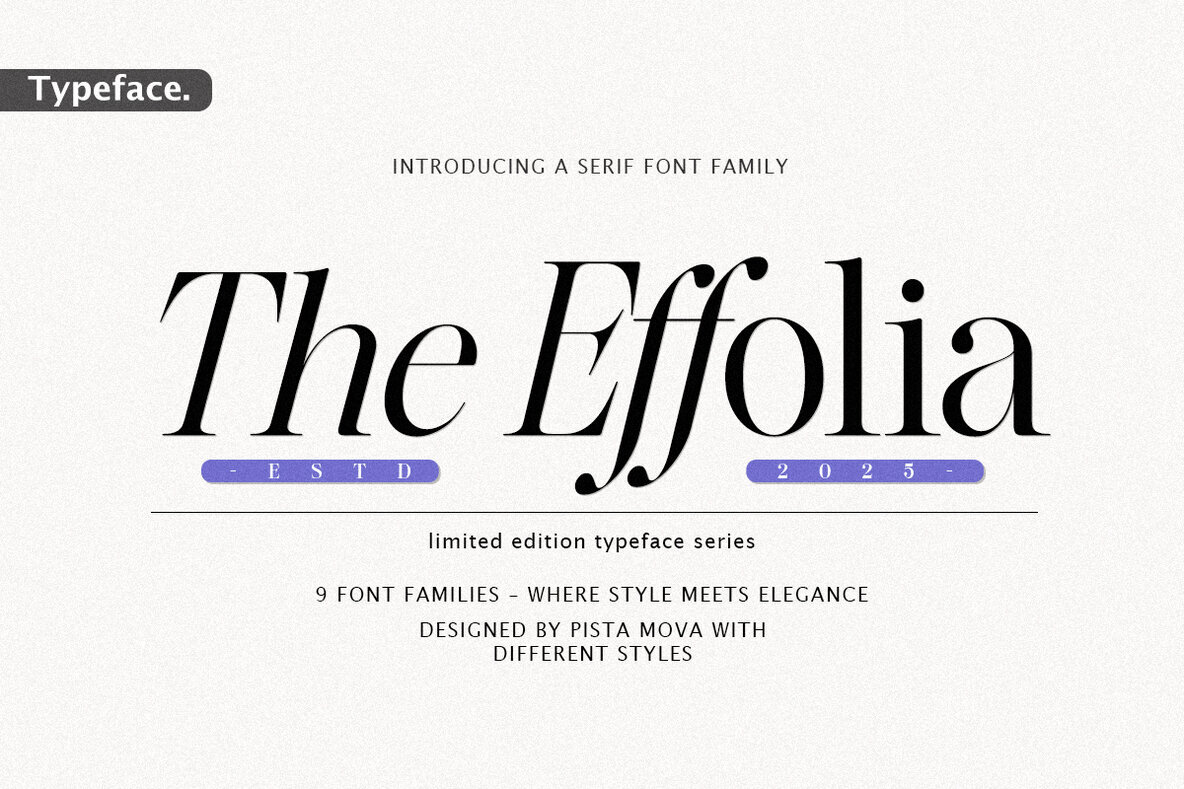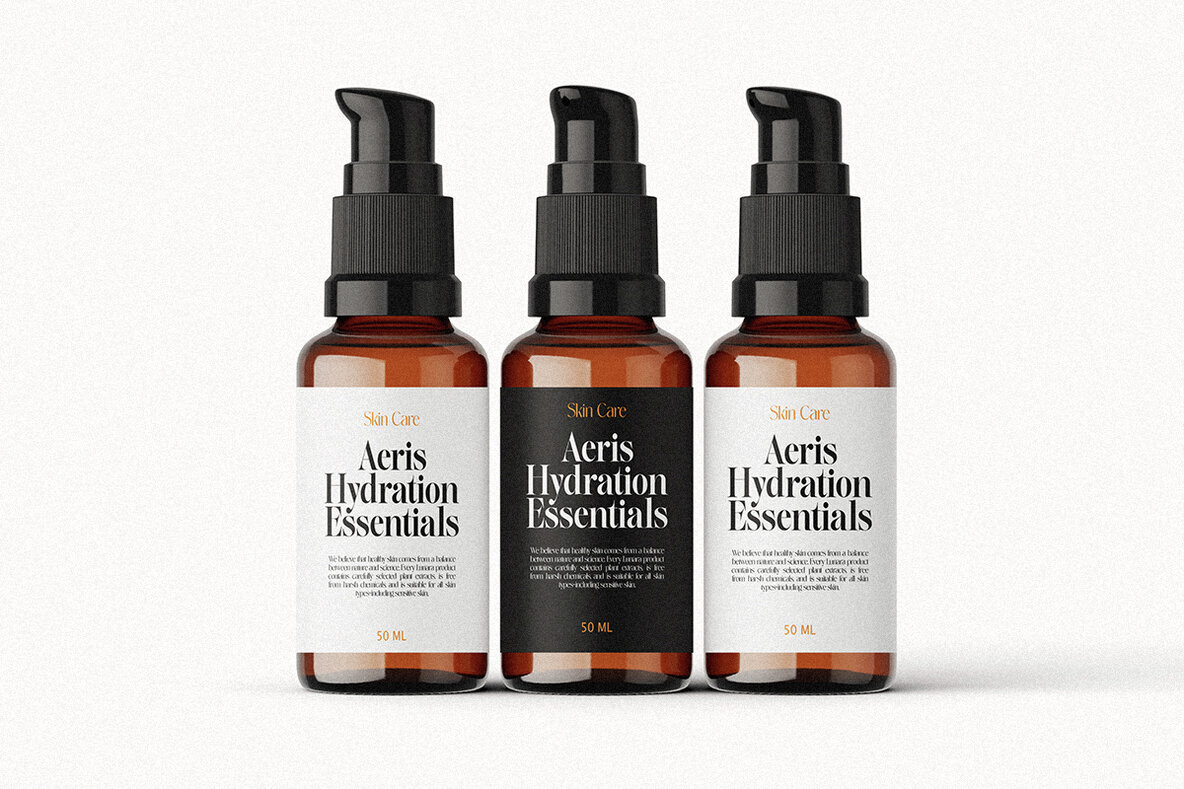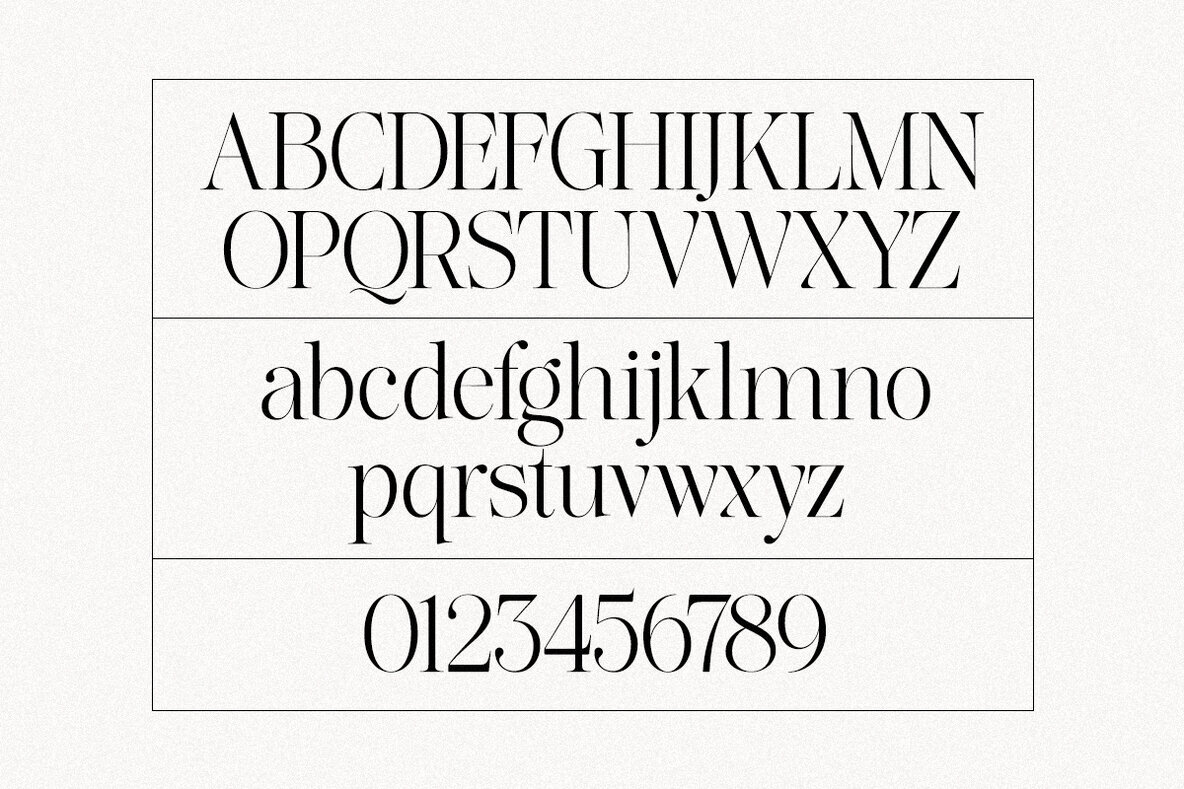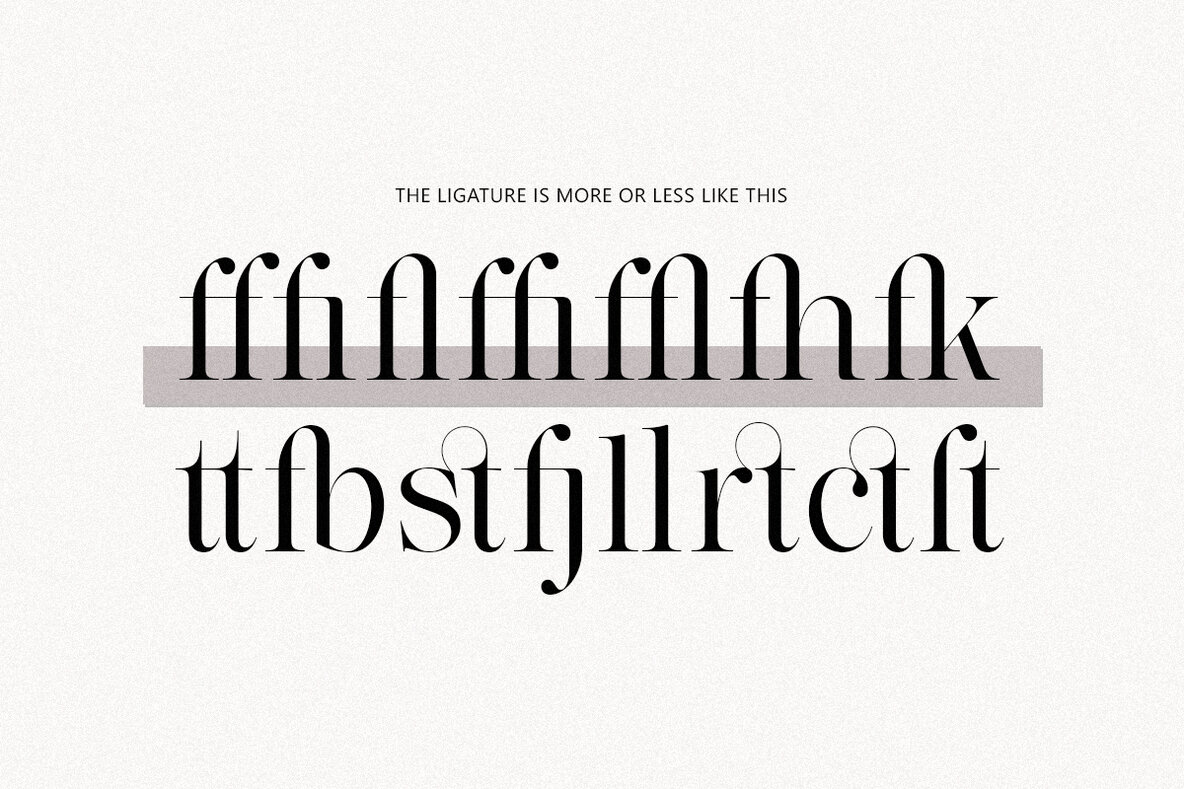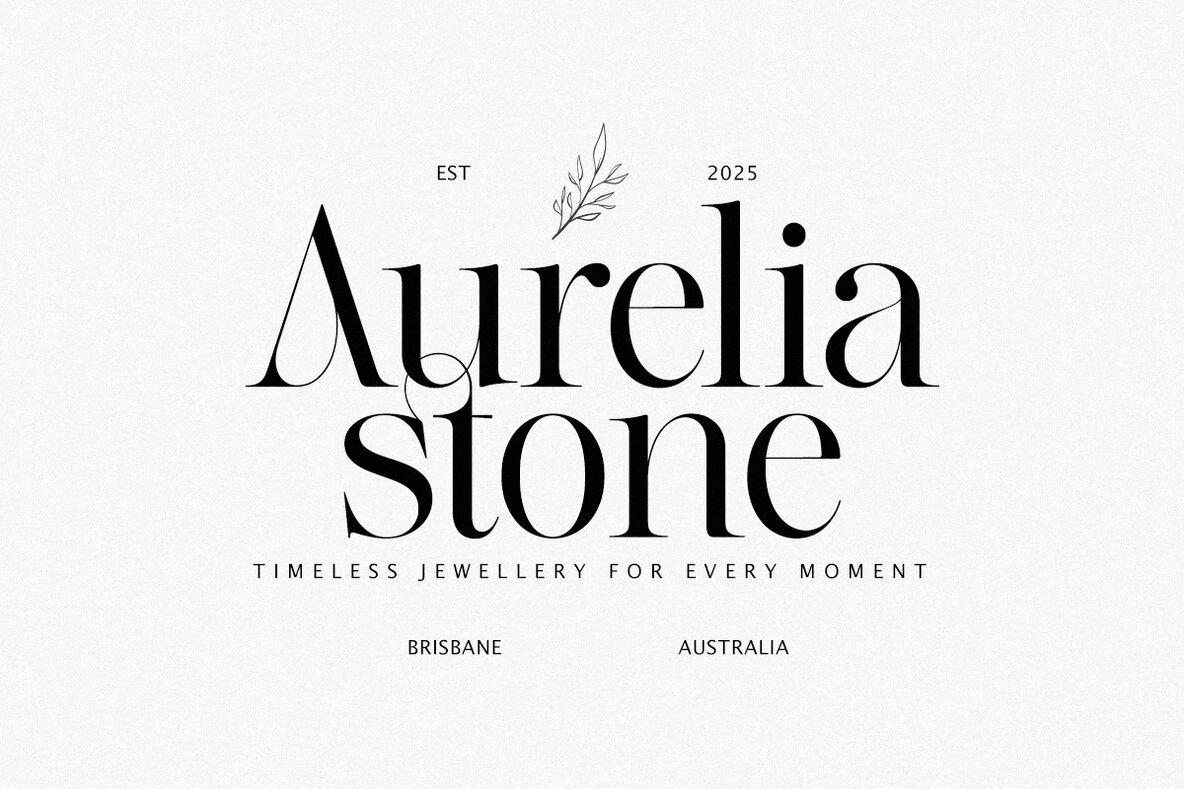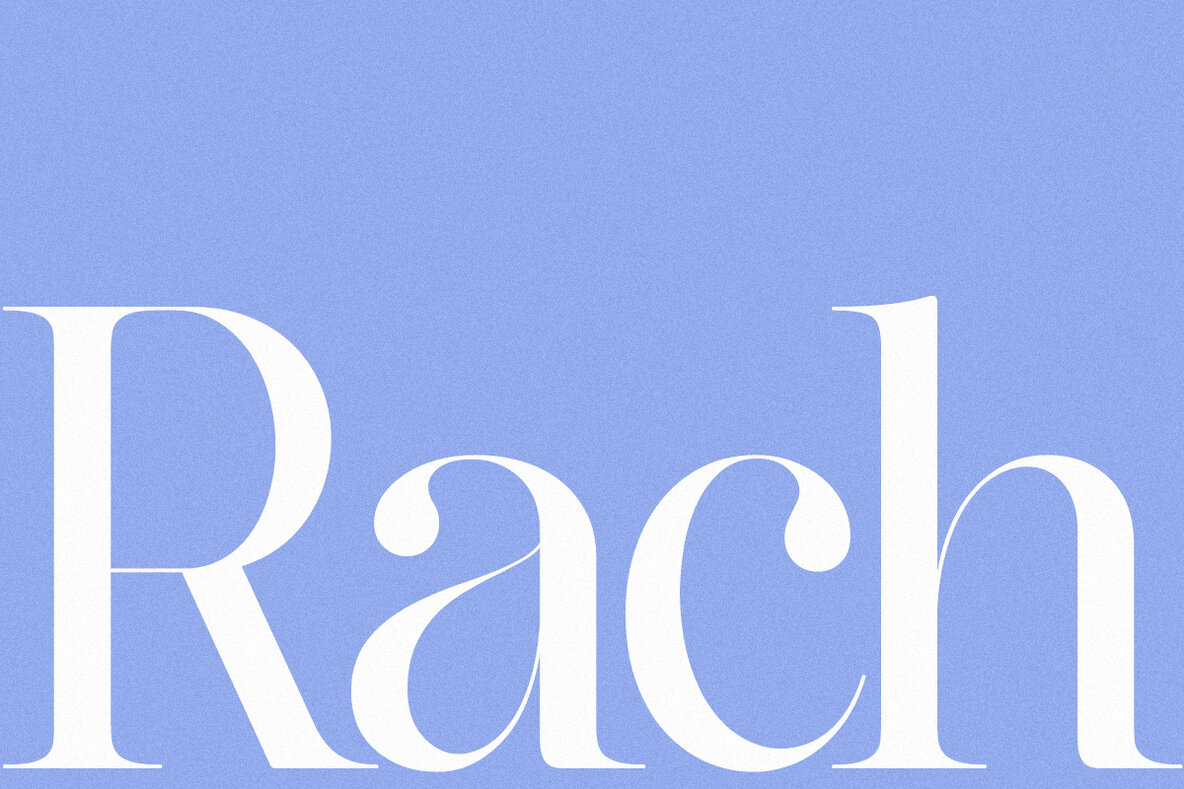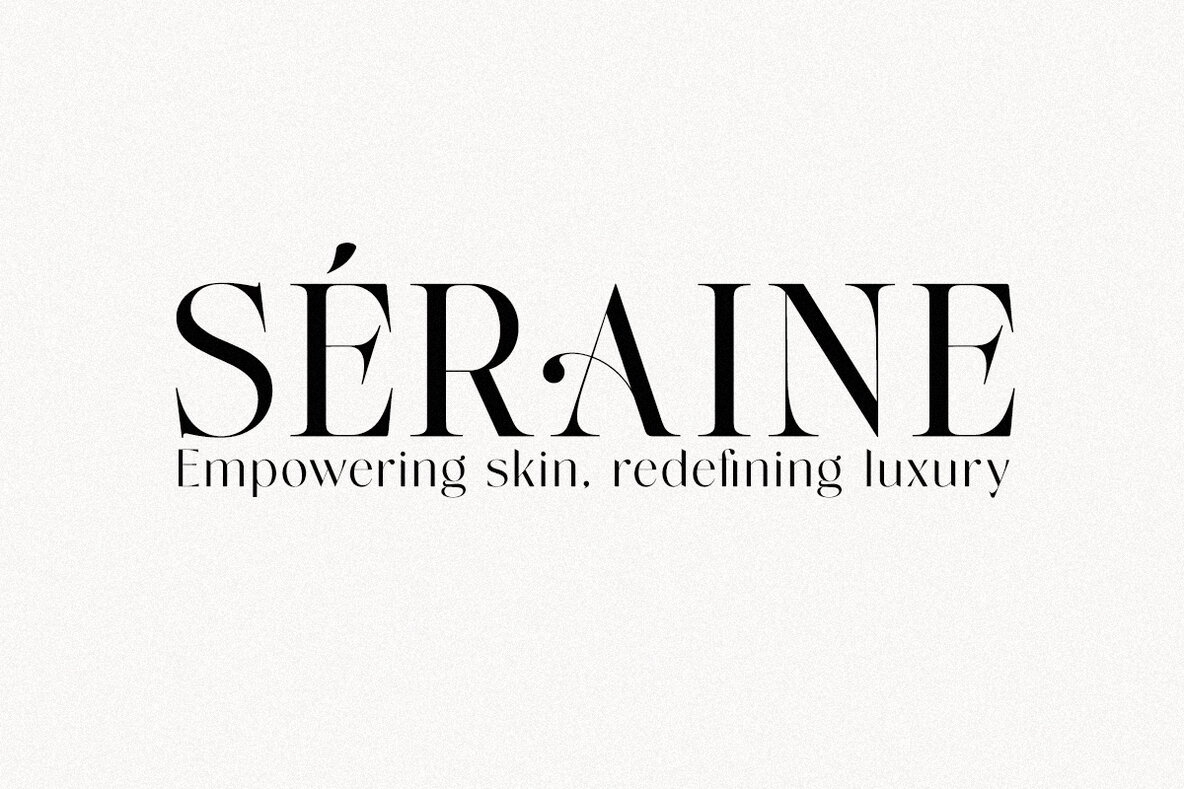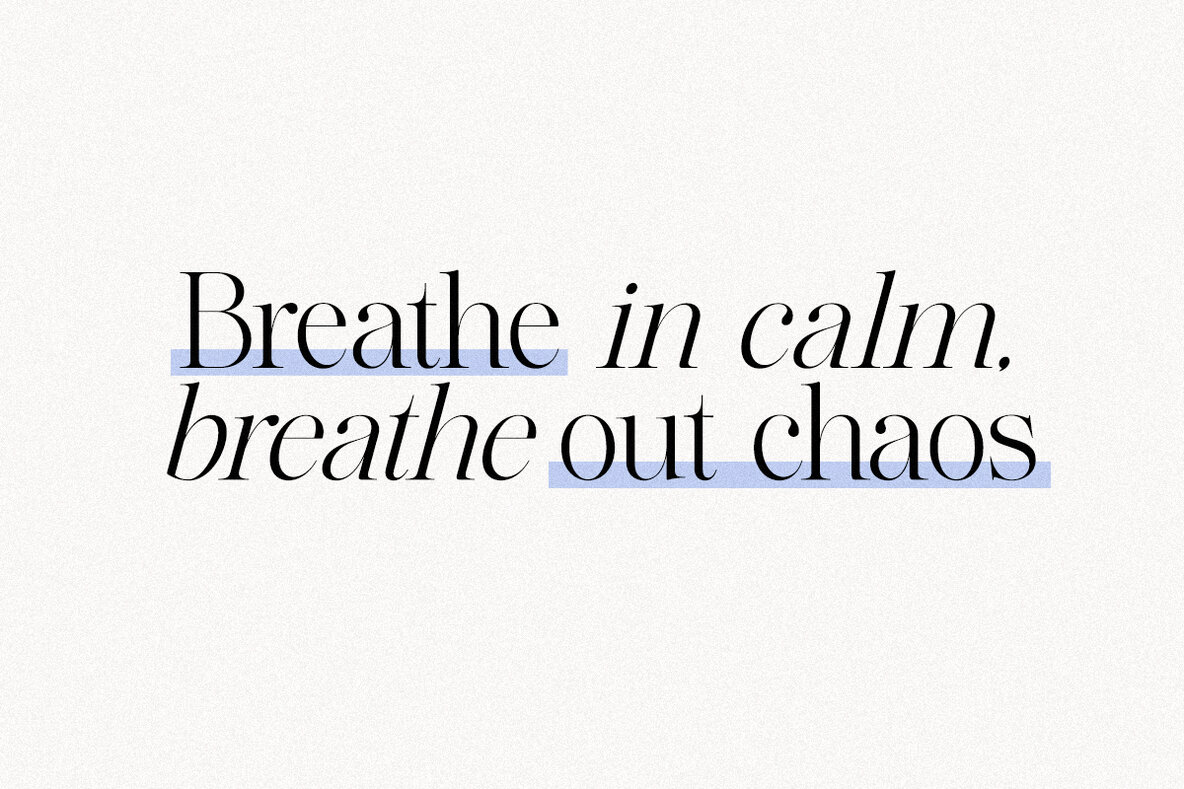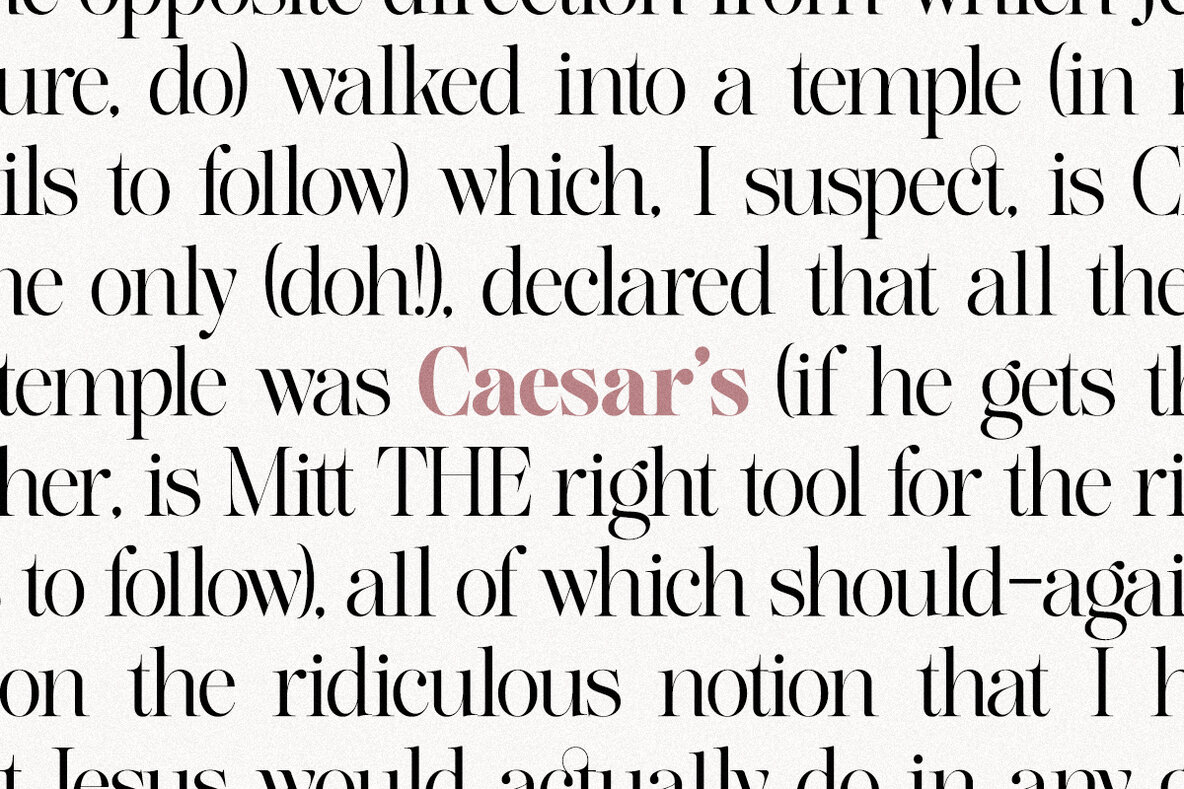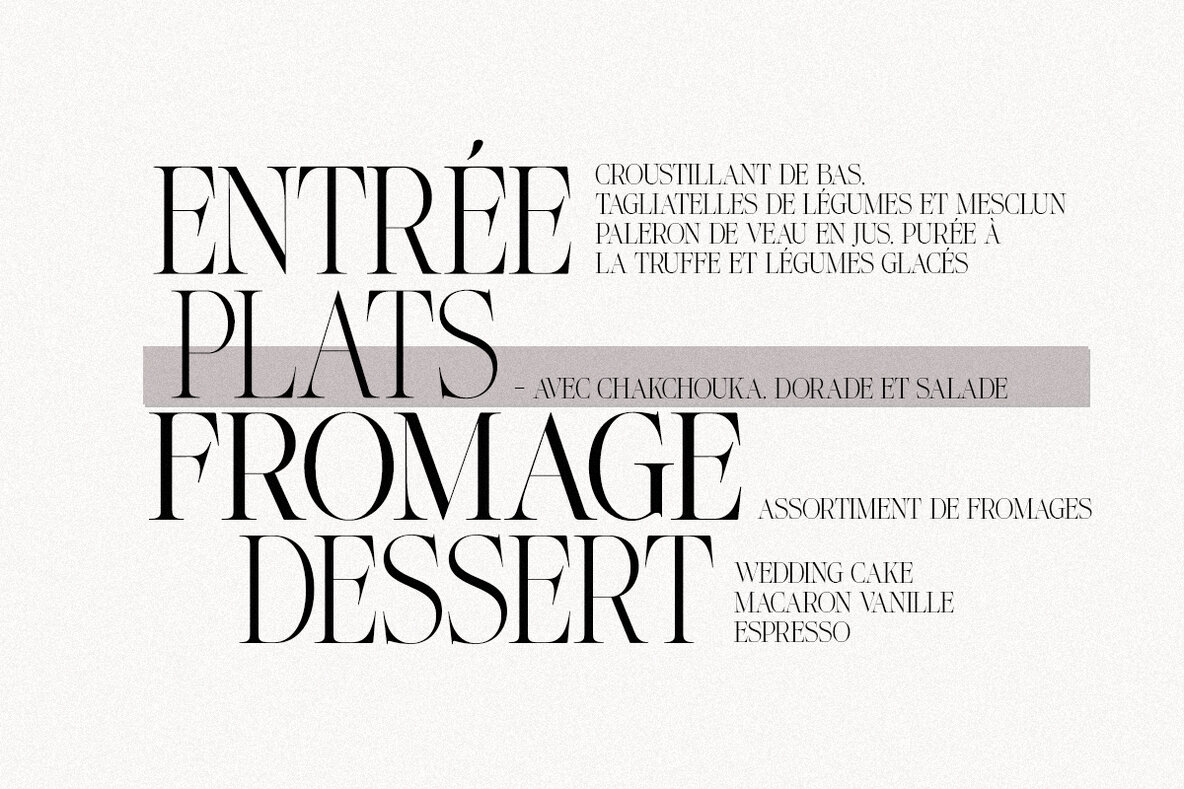
The Effolia Font
The Effolia, a staple of The Softly Serif font family, seamlessly blends the traditional elegance of serif typography with a modern twist. Although this package does not feature all the alternates from the complete series, it includes a substantial 81 font files across 9 family styles. This diverse collection is crafted to address a wide spectrum of design needs. Delve into the charm of The Effolia, where high-contrast strokes and graceful curves orchestrate an enchanting visual harmony. This typeface proudly offers a sophisticated aesthetic suitable for creating standout design elements, whether in editorial layouts, branding, or web design. The Effolia's refined elegance allows your work to shine with a sense of timeless beauty and contemporary flair. Key Features: Perfect for:The Effolia: Classic Meets Contemporary in Serif Design